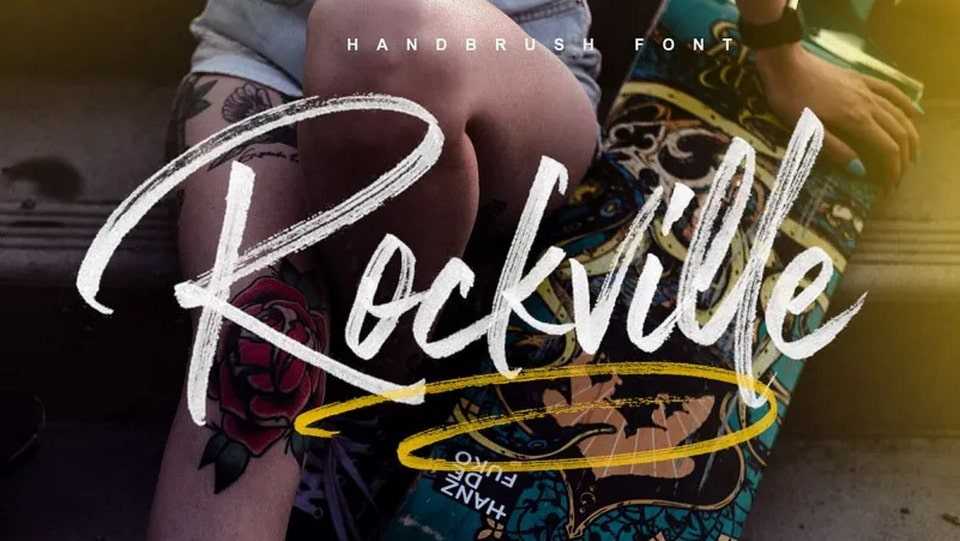
Download Rockville font, a dynamic and catchy hand painted brush script with a natural texture and flow. Rockville font is perfect to deliver a loud message, ideal for logos, apparel, quotes, product packaging, lettering and more.